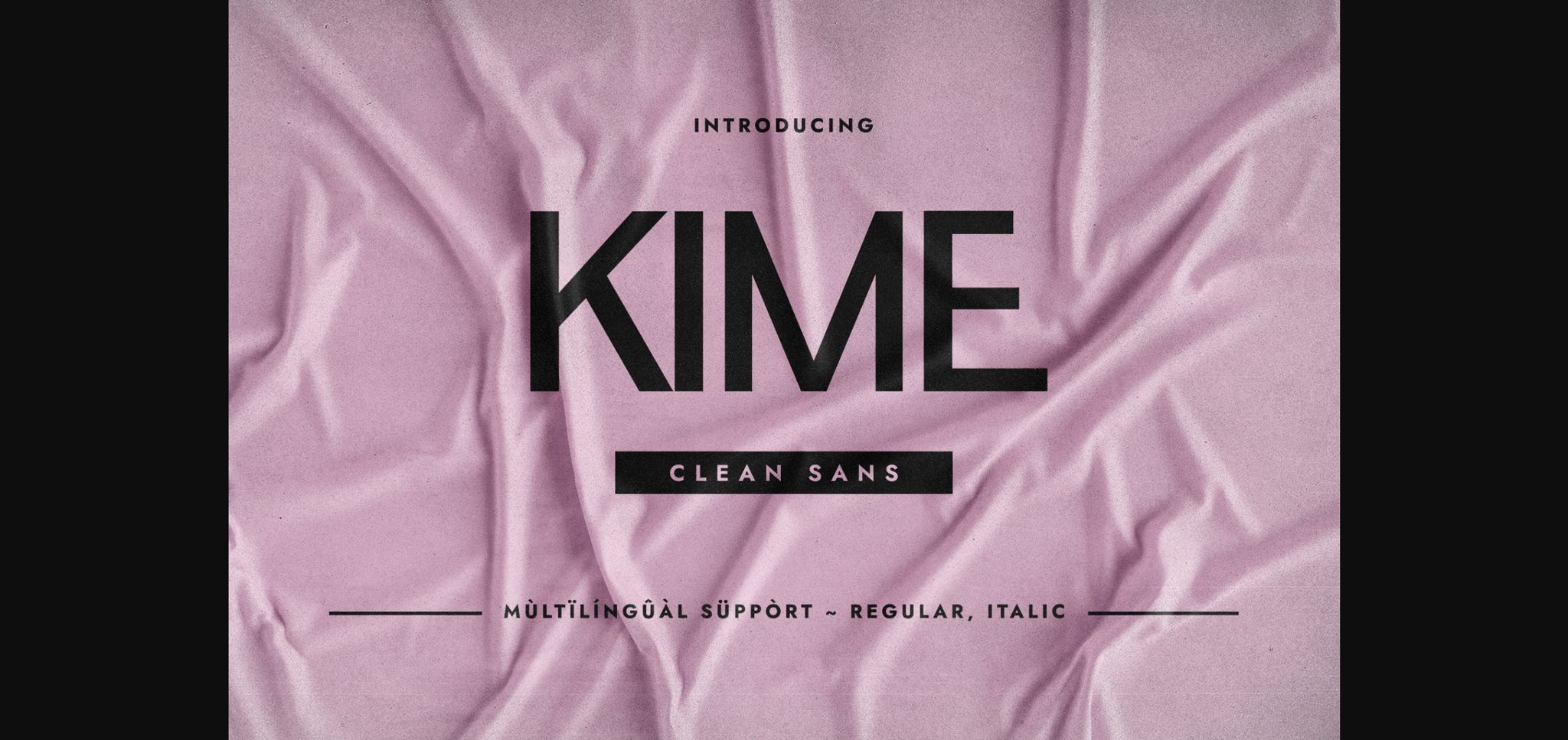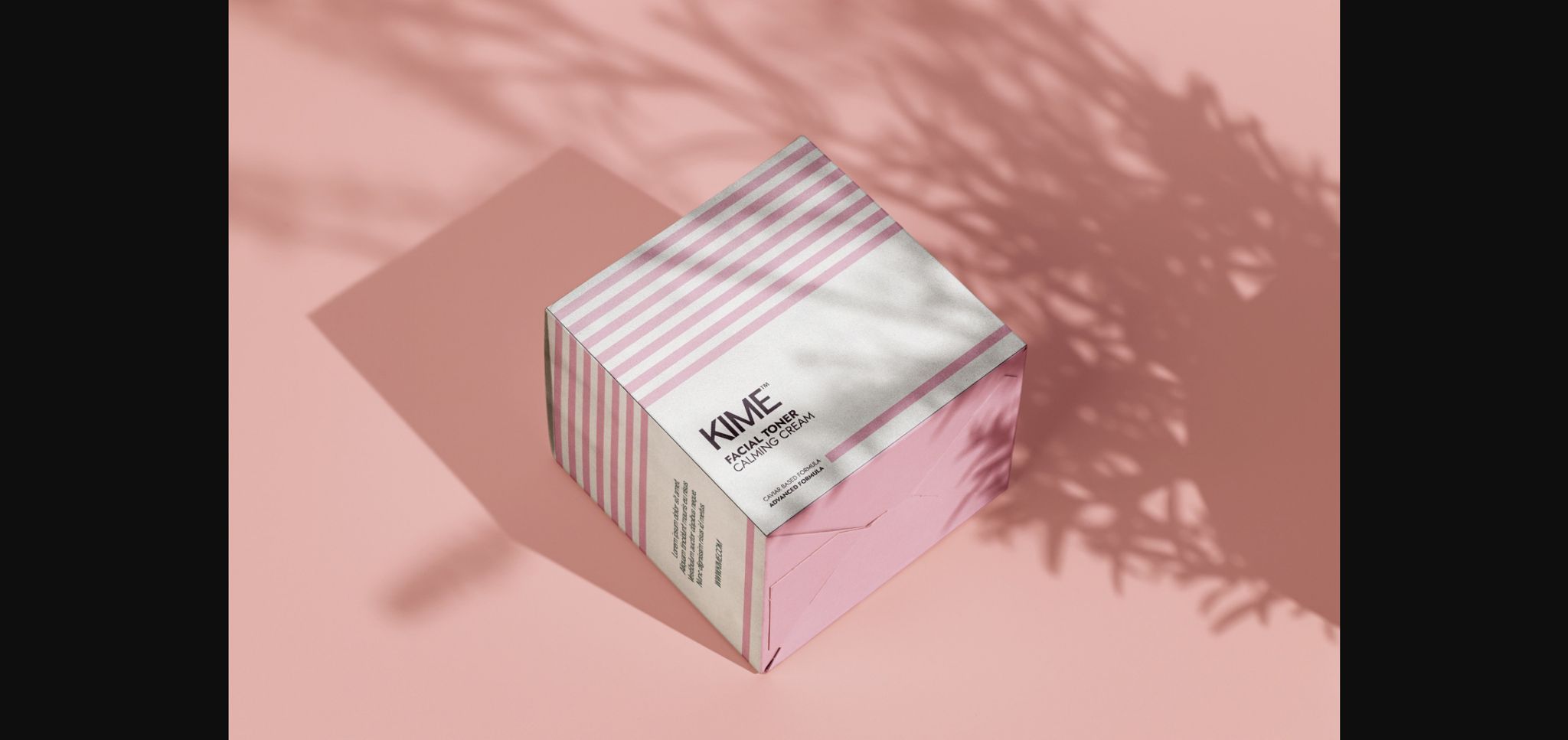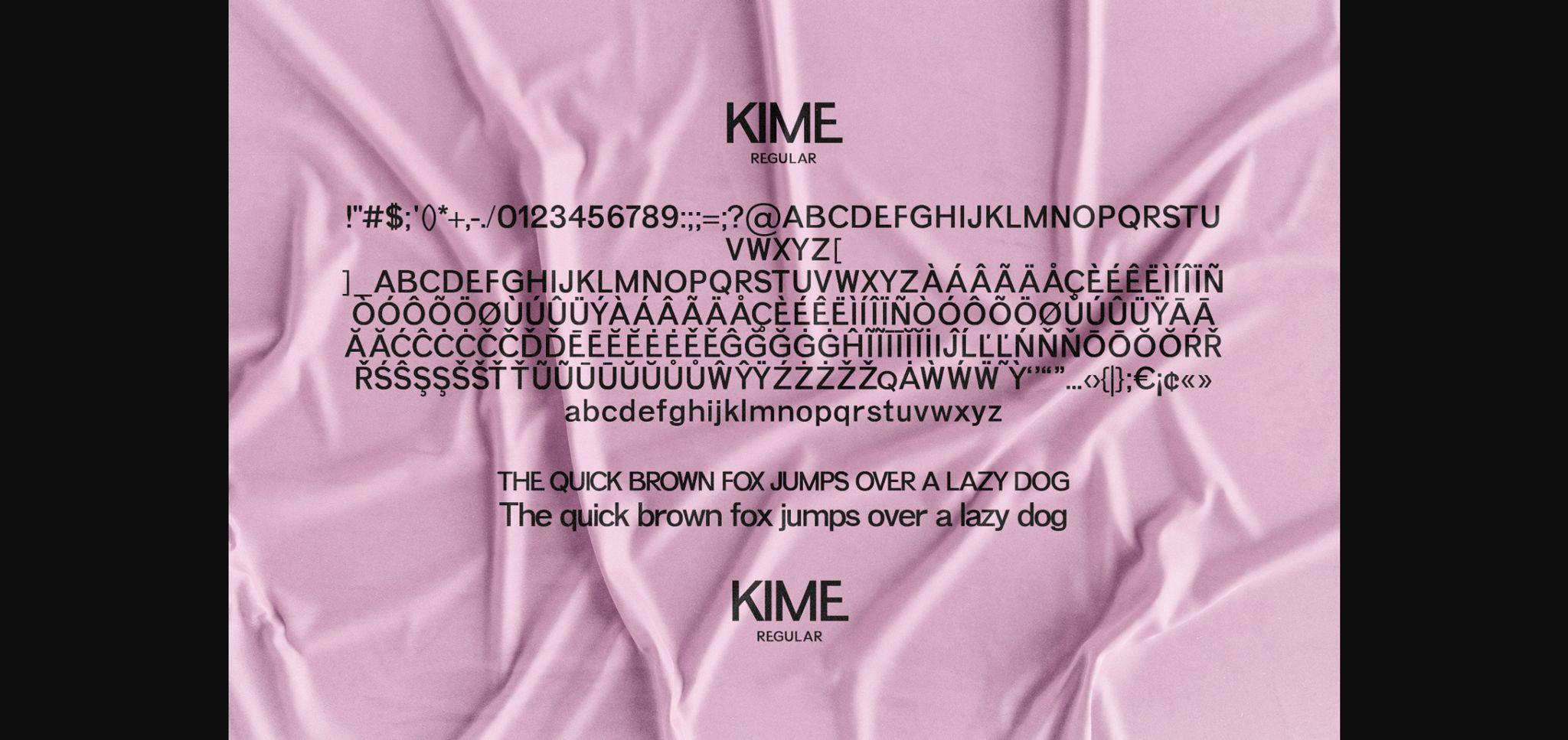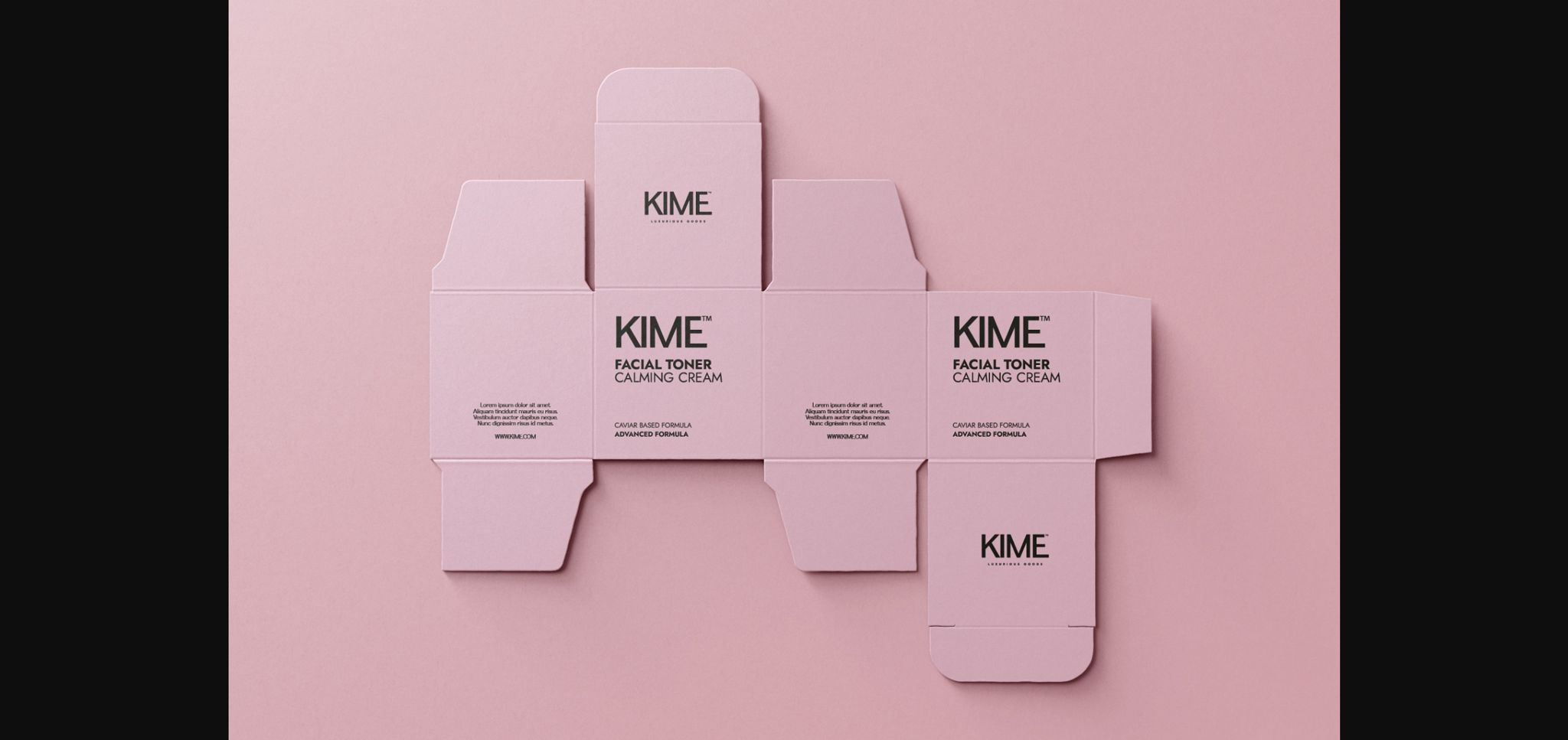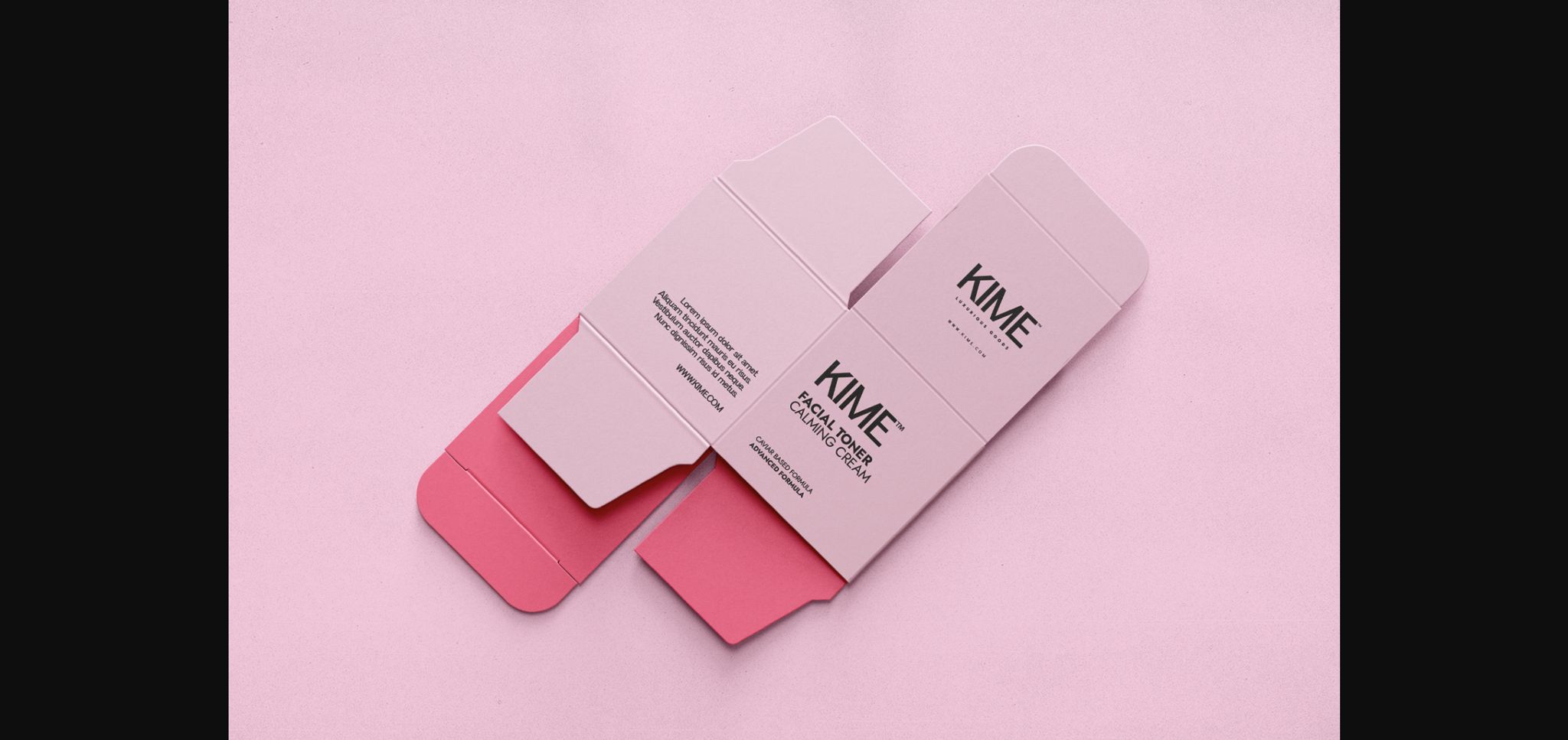
About Kime Font
Kime is a minimalistic and clean sans serif typeface. Its geometric aspect renders it a valid choice when you are creating a design that requires a clean geometrical glyph aspect. It can be used in a wide range of themes such as packaging design, business card design, brand name design, jewelry, big banners, etc. Use it in your favorite project and you will notice how you easily can get very nice results.